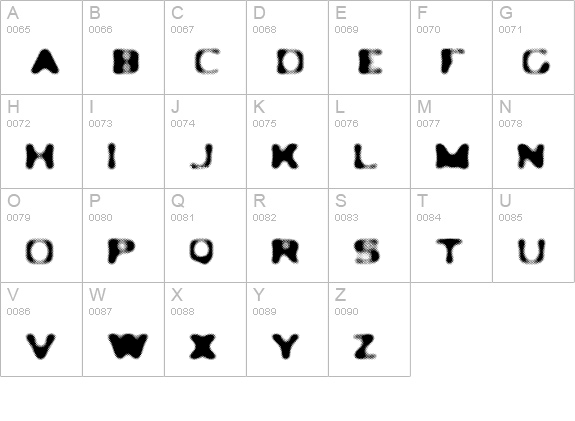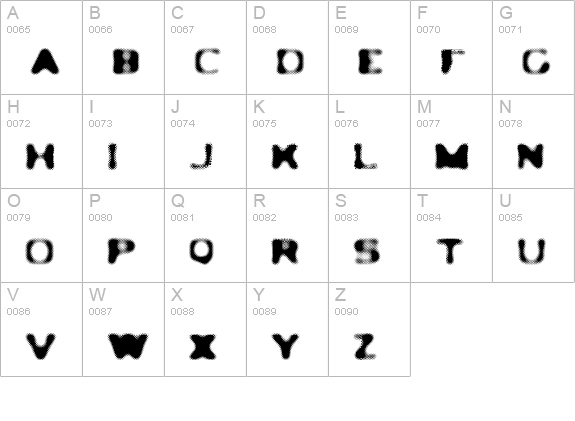
Introducing LEDLIGHT font, a captivating and dynamic typeface that effortlessly illuminates any design project. This font is the perfect fusion of modernity and innovation, with its sleek lines and vibrant glow, making it a must-have for any designer or creative enthusiast. LEDLIGHT font brings a contemporary twist to traditional typography, exuding a sense of energy and excitement. Its carefully crafted letterforms are reminiscent of the captivating glow of LED lights, making it ideal for projects that require a touch of boldness and modernity. With LEDLIGHT font, your designs will truly come to life, as each character radiates a luminous brilliance that captures attention and leaves a lasting impression. Its versatility allows it to be used in a multitude of applications, from eye-catching headlines and impactful logos to striking advertisements and attention-grabbing signage. The best part? LEDLIGHT font is absolutely free! It can be easily downloaded at FontsMarket.com, your go-to destination for high-quality and professionally designed fonts. Whether you're a seasoned designer or just starting out, this font will undoubtedly become a valuable addition to your creative arsenal. So why settle for ordinary when you can incorporate the captivating brilliance of LEDLIGHT font into your designs? Get ready to elevate your projects to new heights with this freely available font, guaranteed to captivate and inspire. Download LEDLIGHT font today and let your creativity shine!